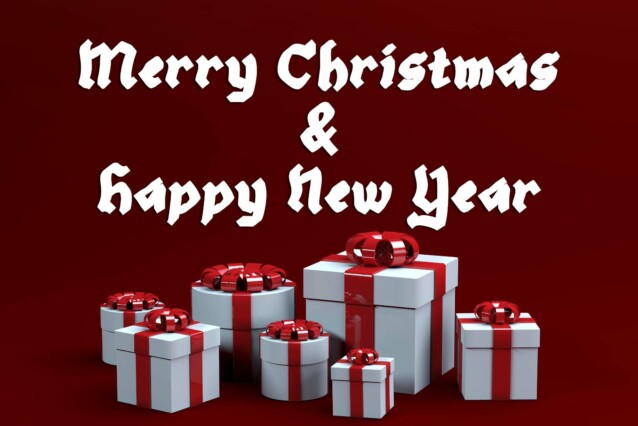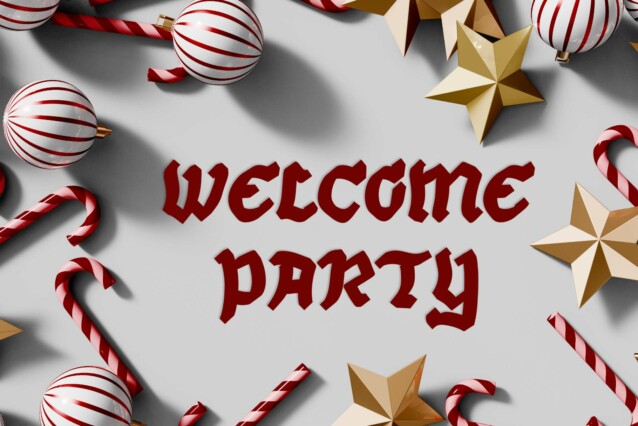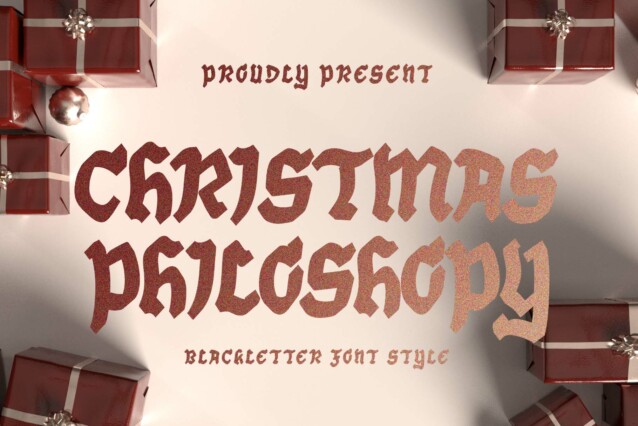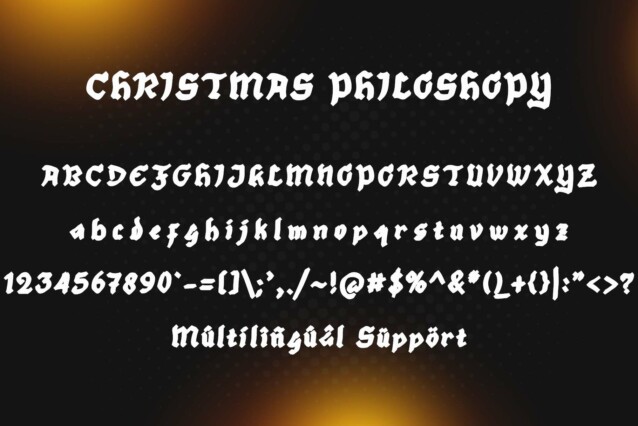
Christmas Philosophy Font
Christmas Philosophy Font is an elegant blackletter font. This font is equipped with uppercase, lowercase, numerals, punctuation, and multilingual support. Very suitable for Christmas, Halloween, invitations, book titles, posters, banners, stickers, tattoos, bras, and others.